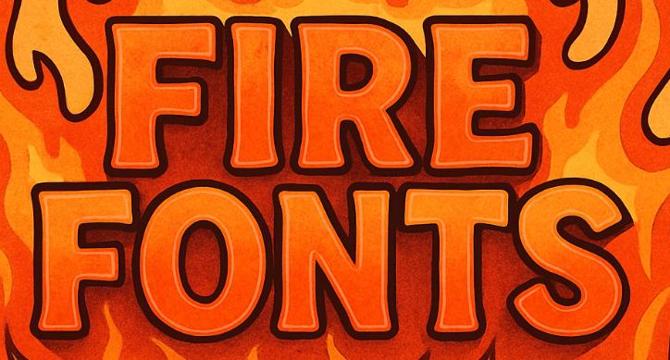
Choosing the right fire font is essential for creating engaging Free Fire-themed designs that capture the game's energetic and combat-focused aesthetic.
Typography plays a crucial role in setting the tone of Free Fire designs, conveying action, excitement, and edginess to viewers.
Font color is equally important, with vibrant reds, oranges, and yellows often used to evoke fire, energy, and action in Free Fire designs.
The perfect Free Fire font, paired with appropriate colors and design elements, can elevate your work and resonate effectively with the Free Fire community.